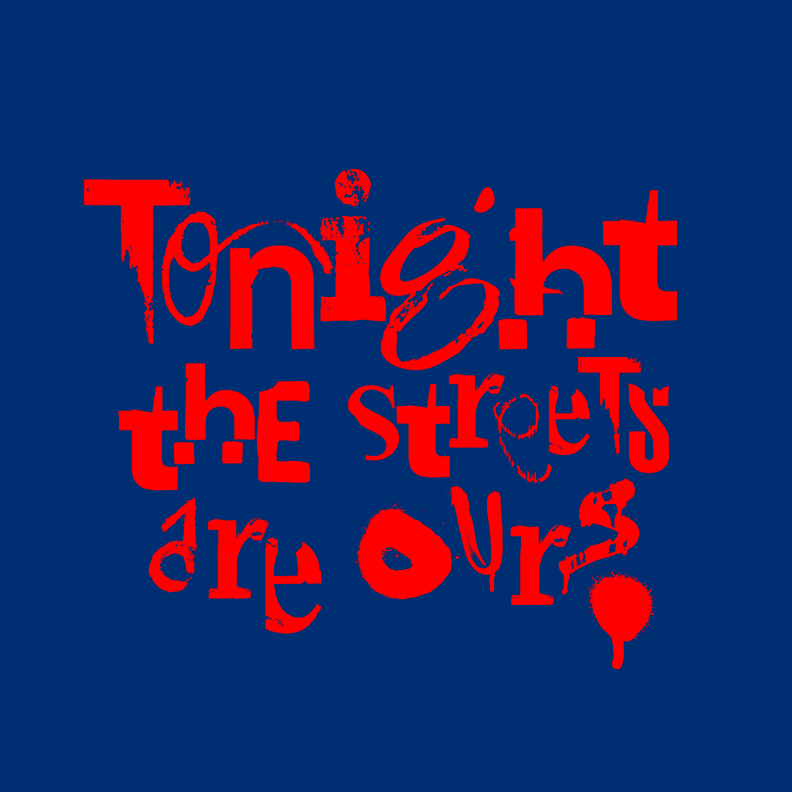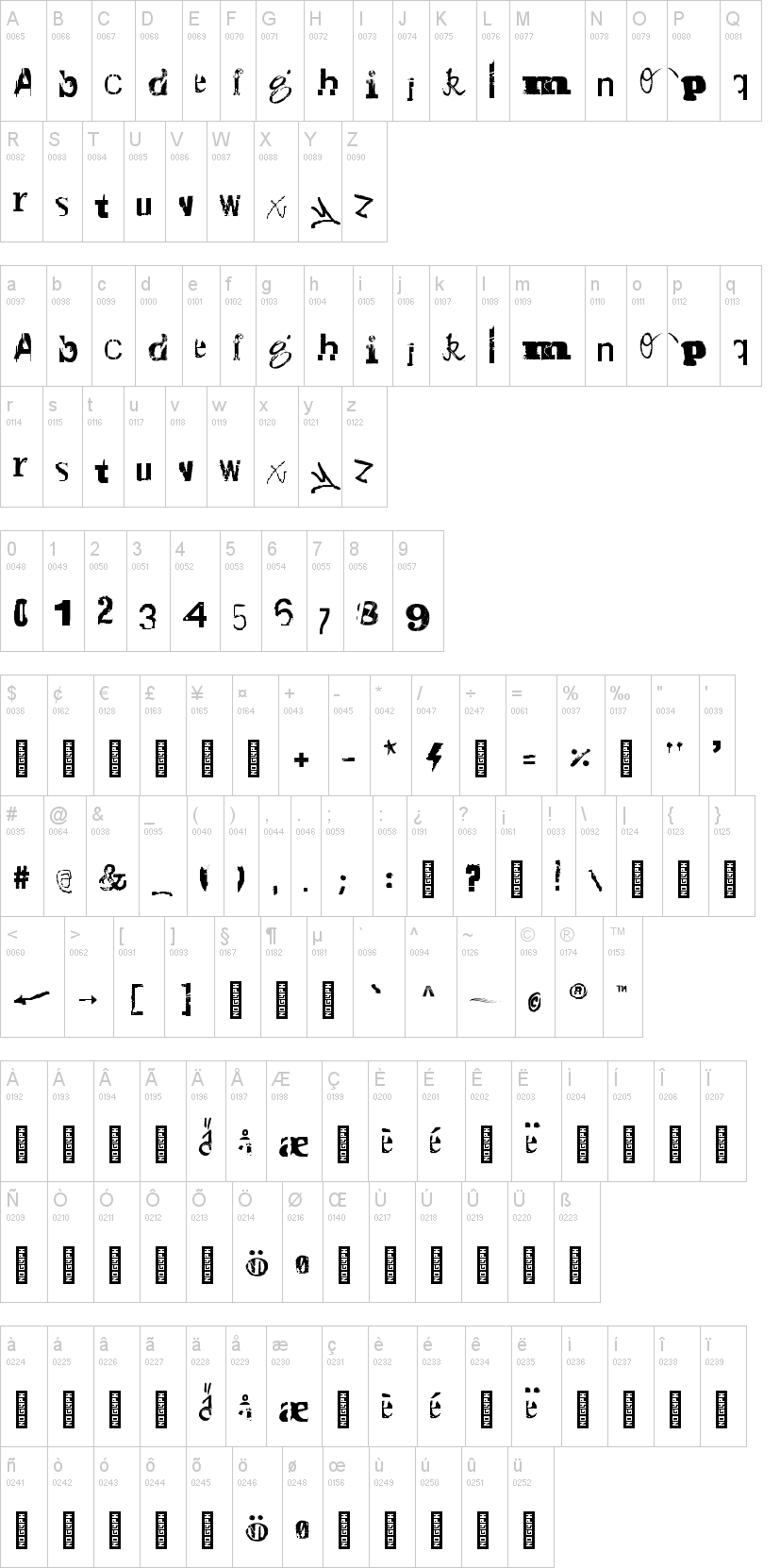
Note of the authorGraphic designers Christina Bruun Olsson and Christian Koch have developed the font 'Gadetyper' - the unofficial Copenhagen type face in collaboration. 'Gadetyper' translates to 'street types' in danish.
It contains letters, numbers, dingbats and other characters from signs and graffiti photographed in the streets of Copenhagen. These images have thereafter been digitized and assembled into this font.